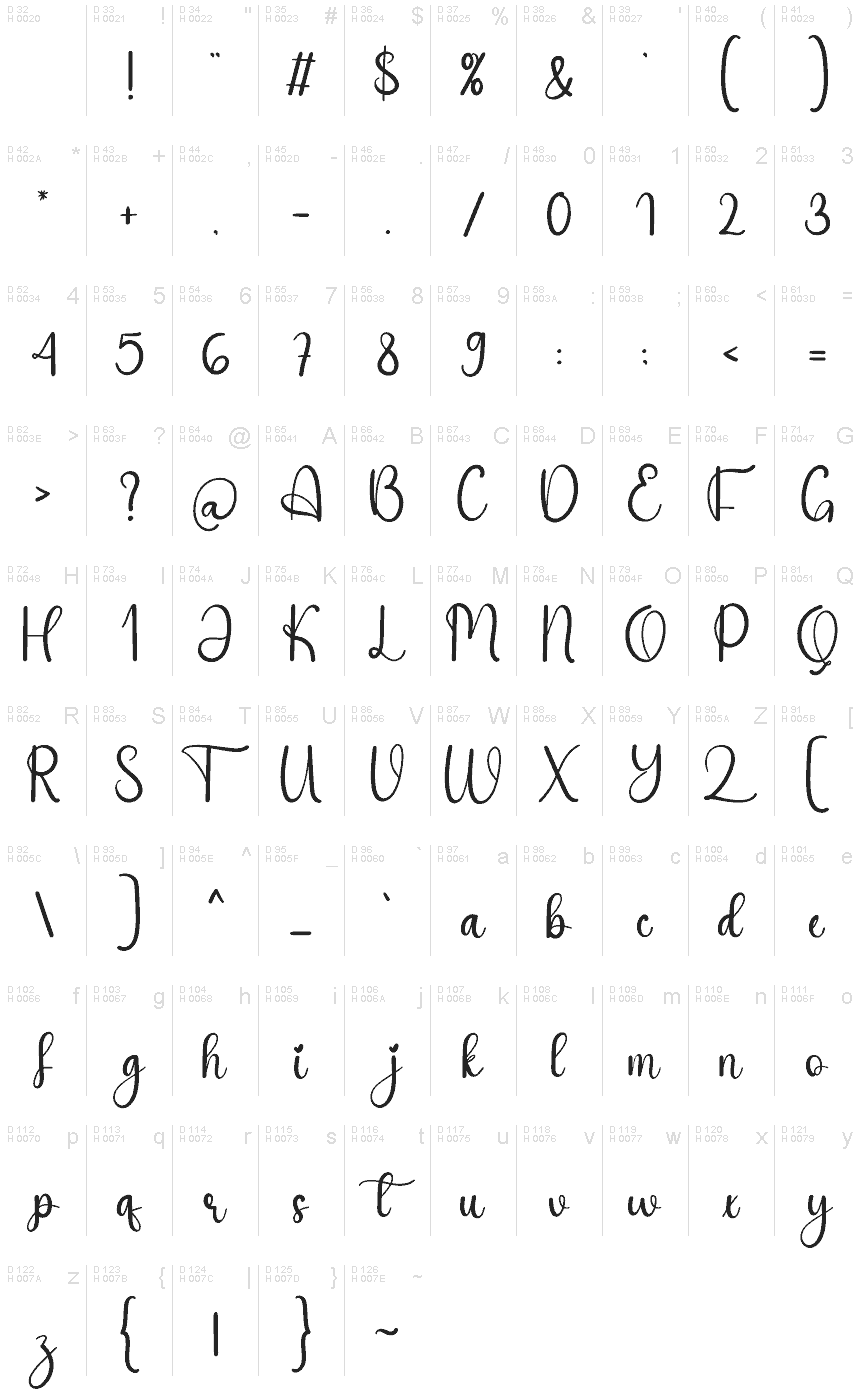
Coffee Christmas
Coffee Christmas font by Andi Moz is a free handwritten font with an elegant, flowing, and harmonious style. The whimsical script movements stand out immediately as the curvatures of the lines makes you think of a dancer’s body on stage swaying to music we cannot hear. This font which is not only feminine, is classic and eye catching which is bound to leave your audience in awe.
This resource can be used on personal signatures, slogans or taglines for brands, headlines in magazines etc. With more commercial use cases in mind Coffee Christmas can also be featured on invitations and event flyers like wedding announcements. Use it for product branding for handcrafted items or cosmetics. Try it out too when designing posters, menu cards as well as shop display names and logos!